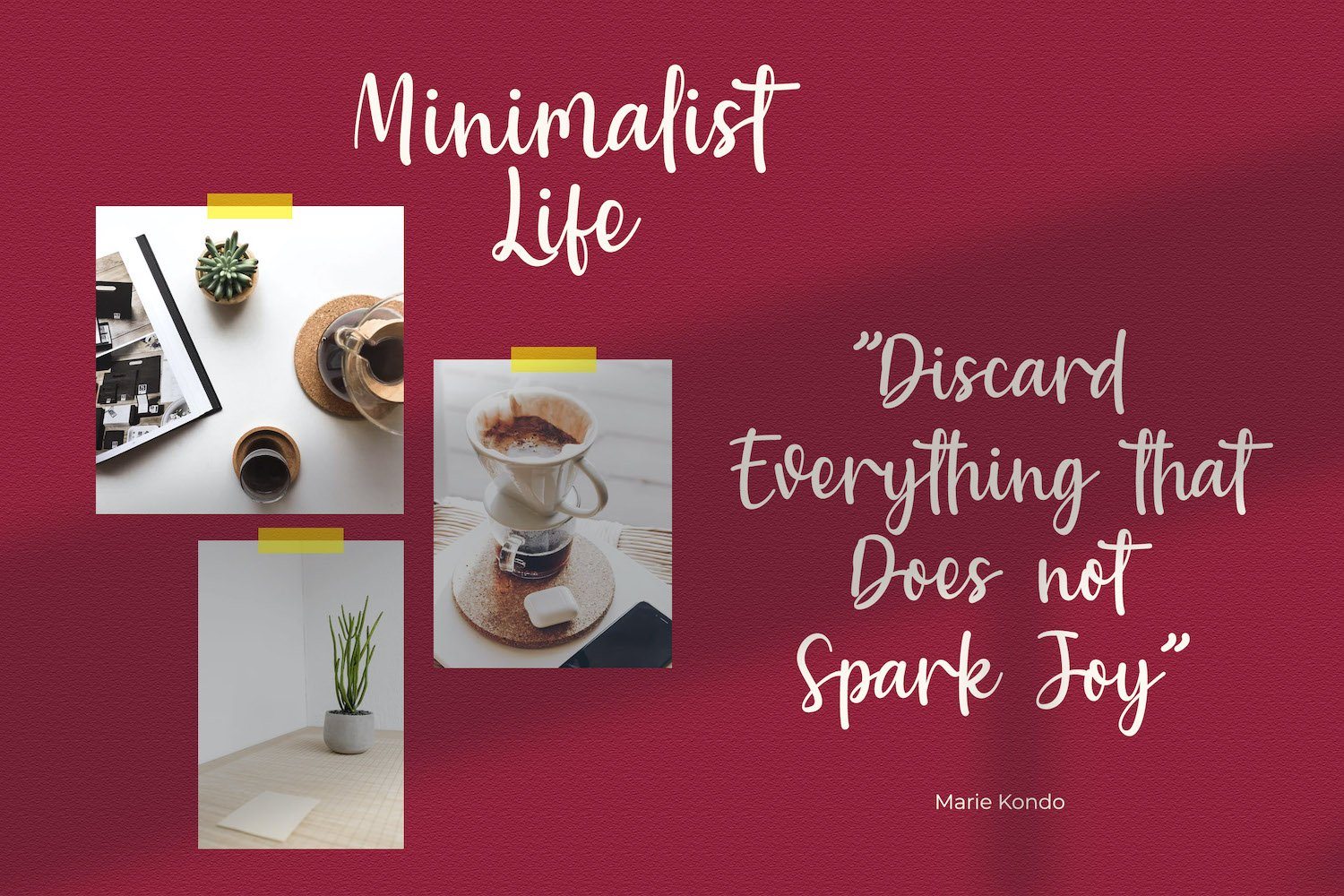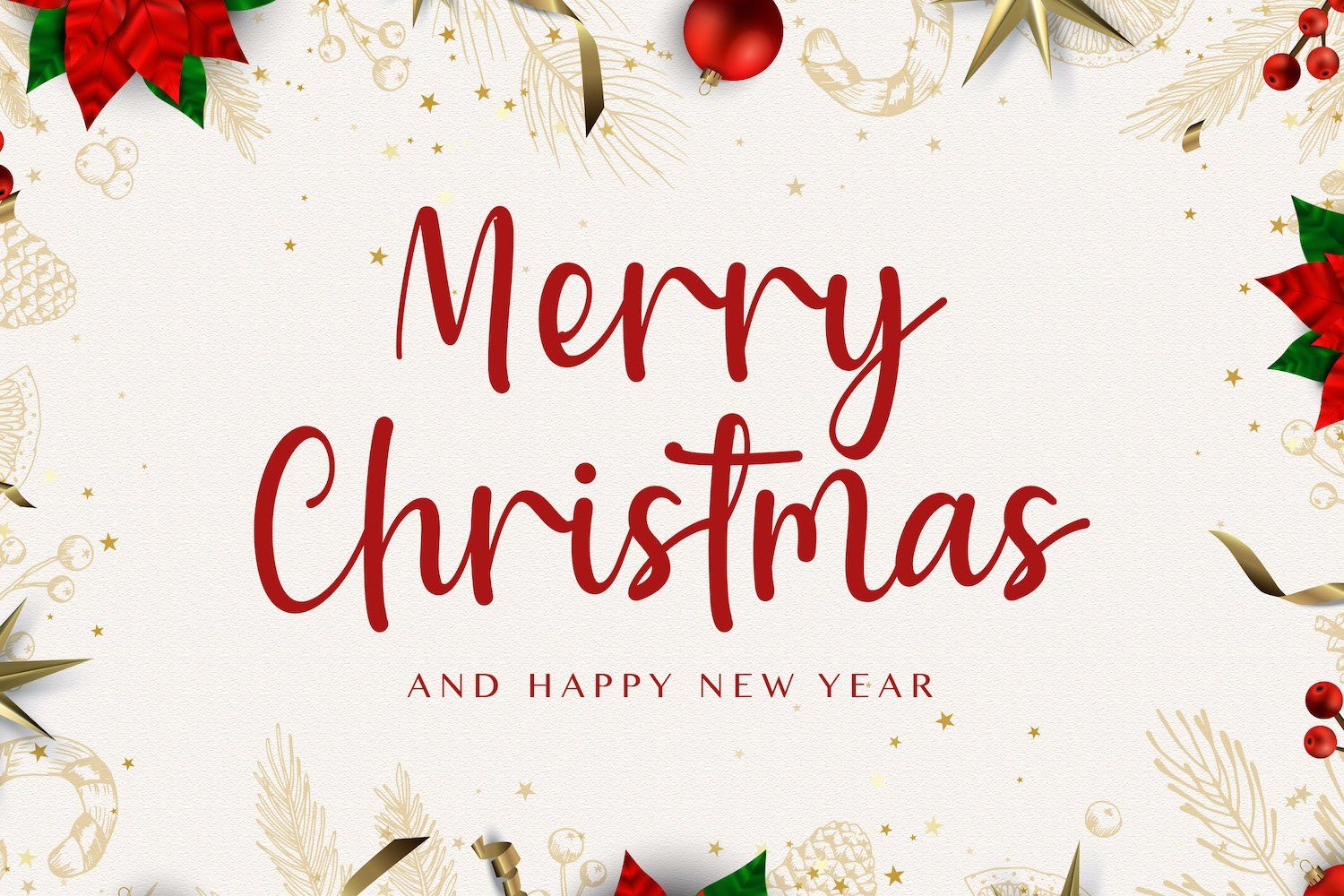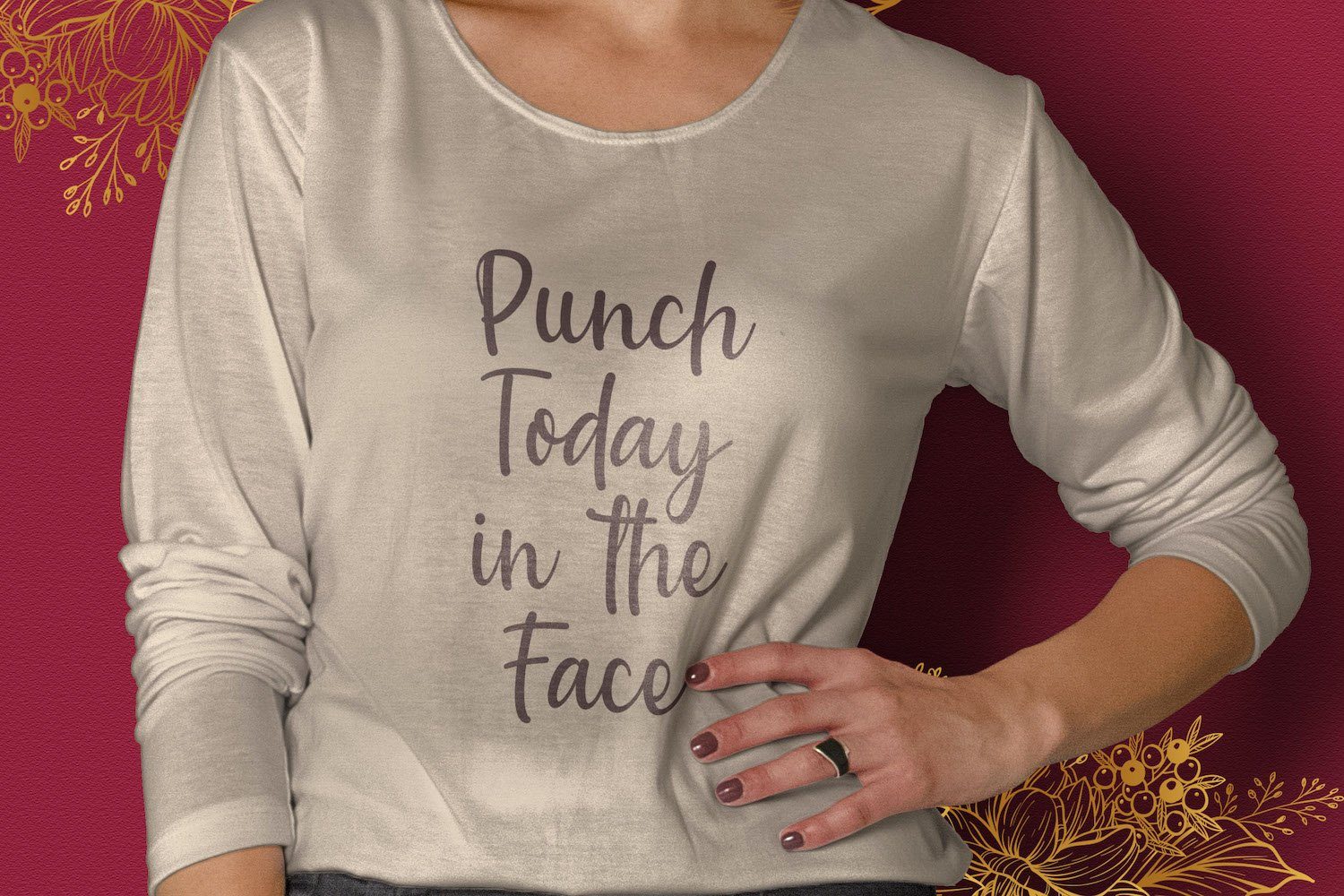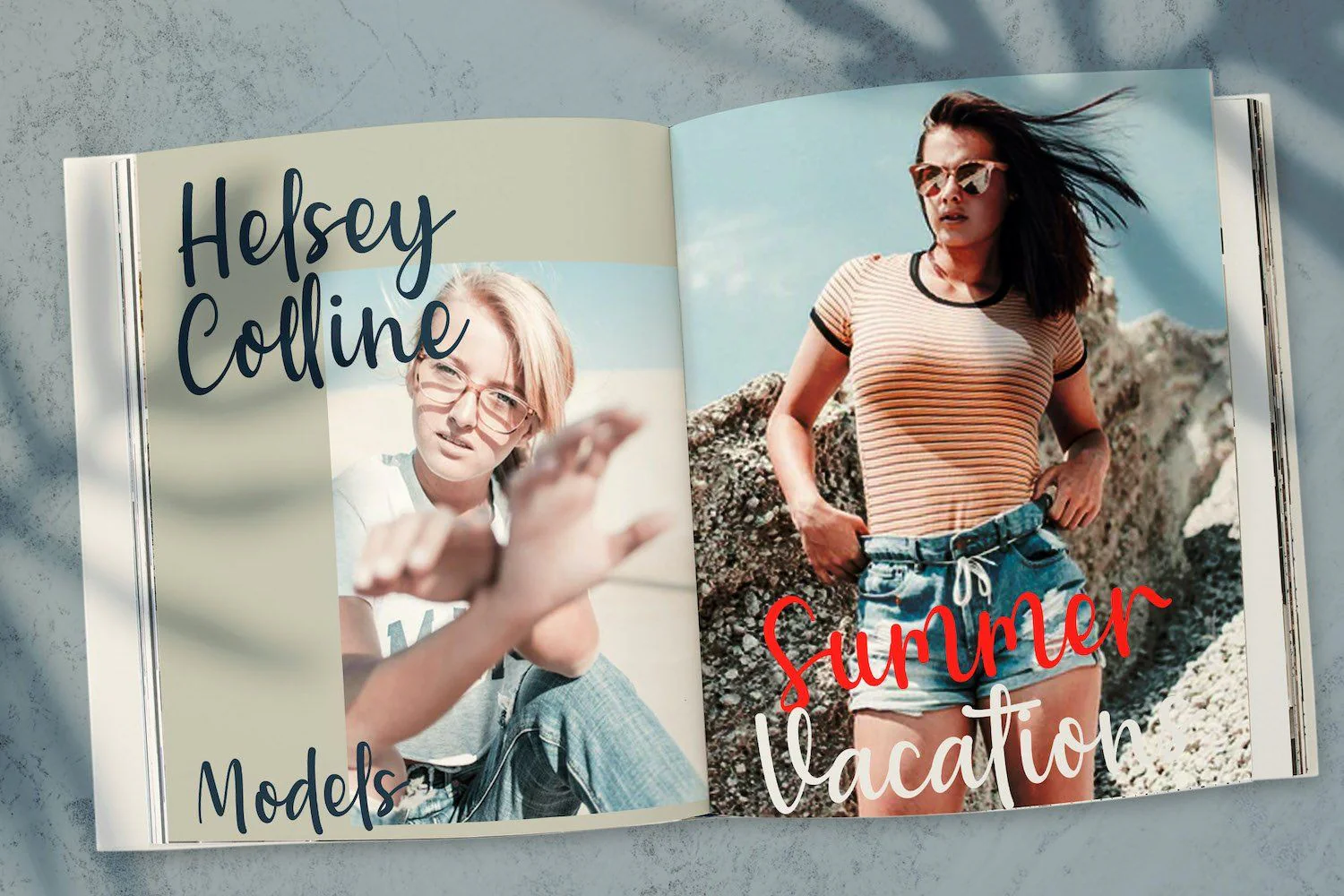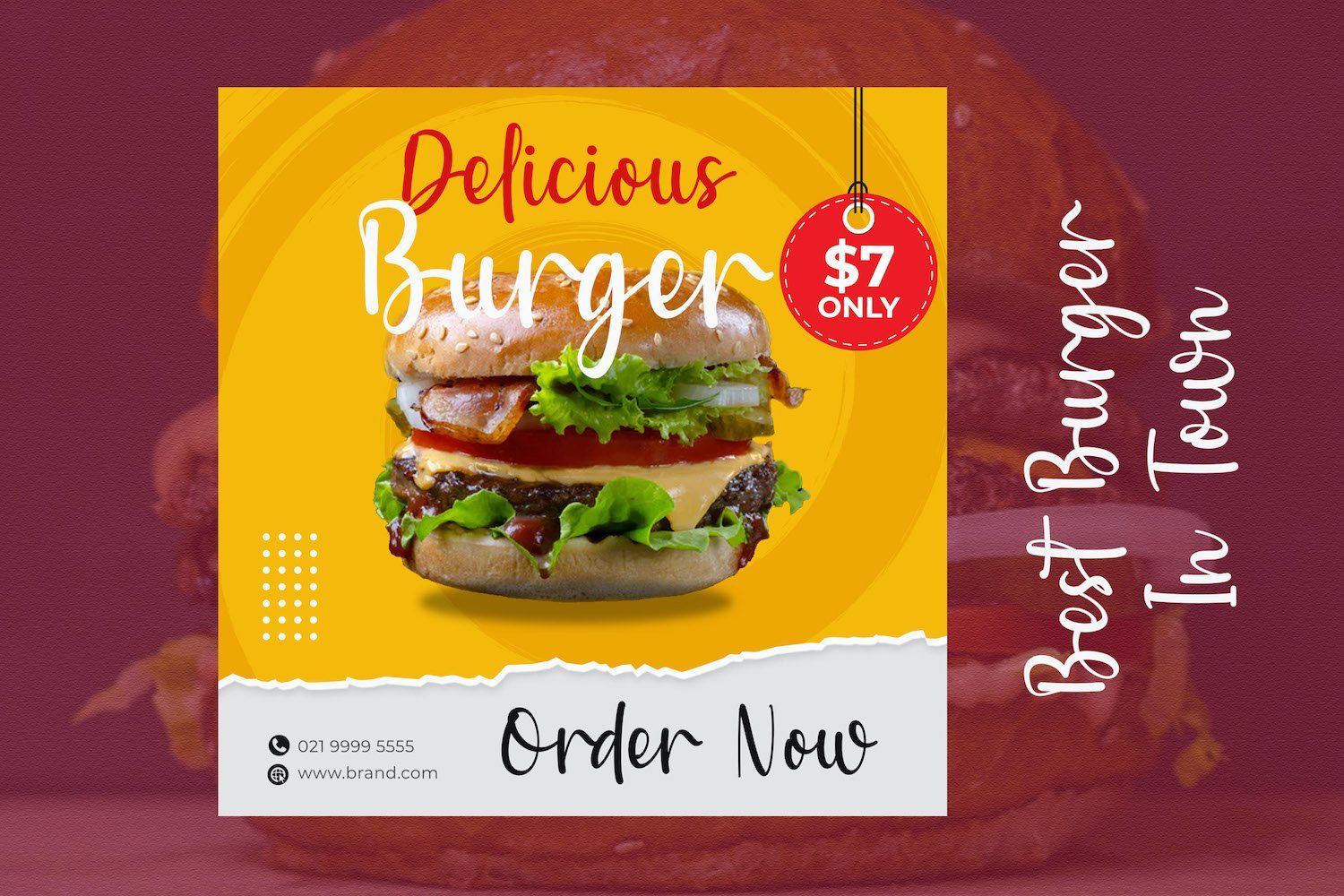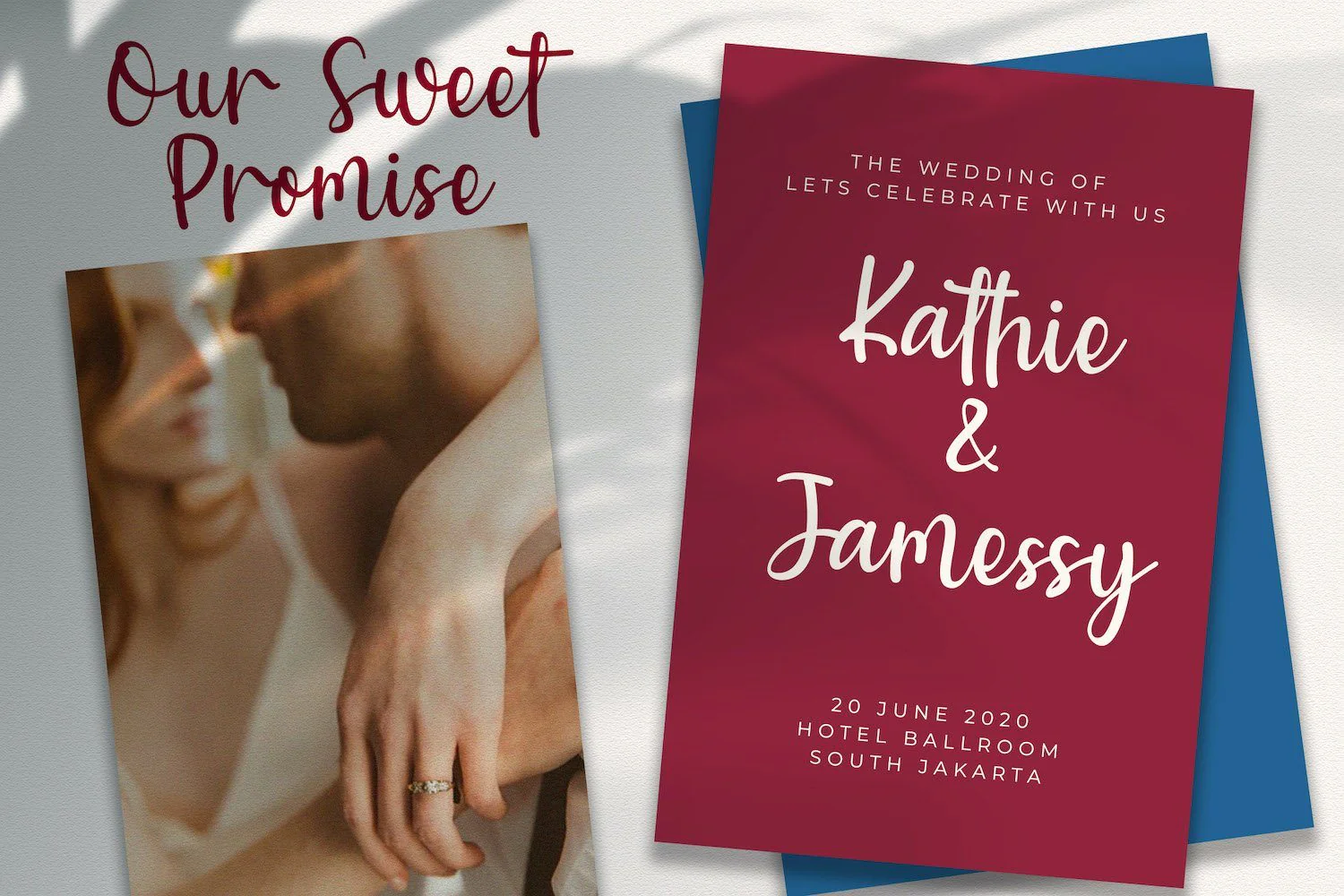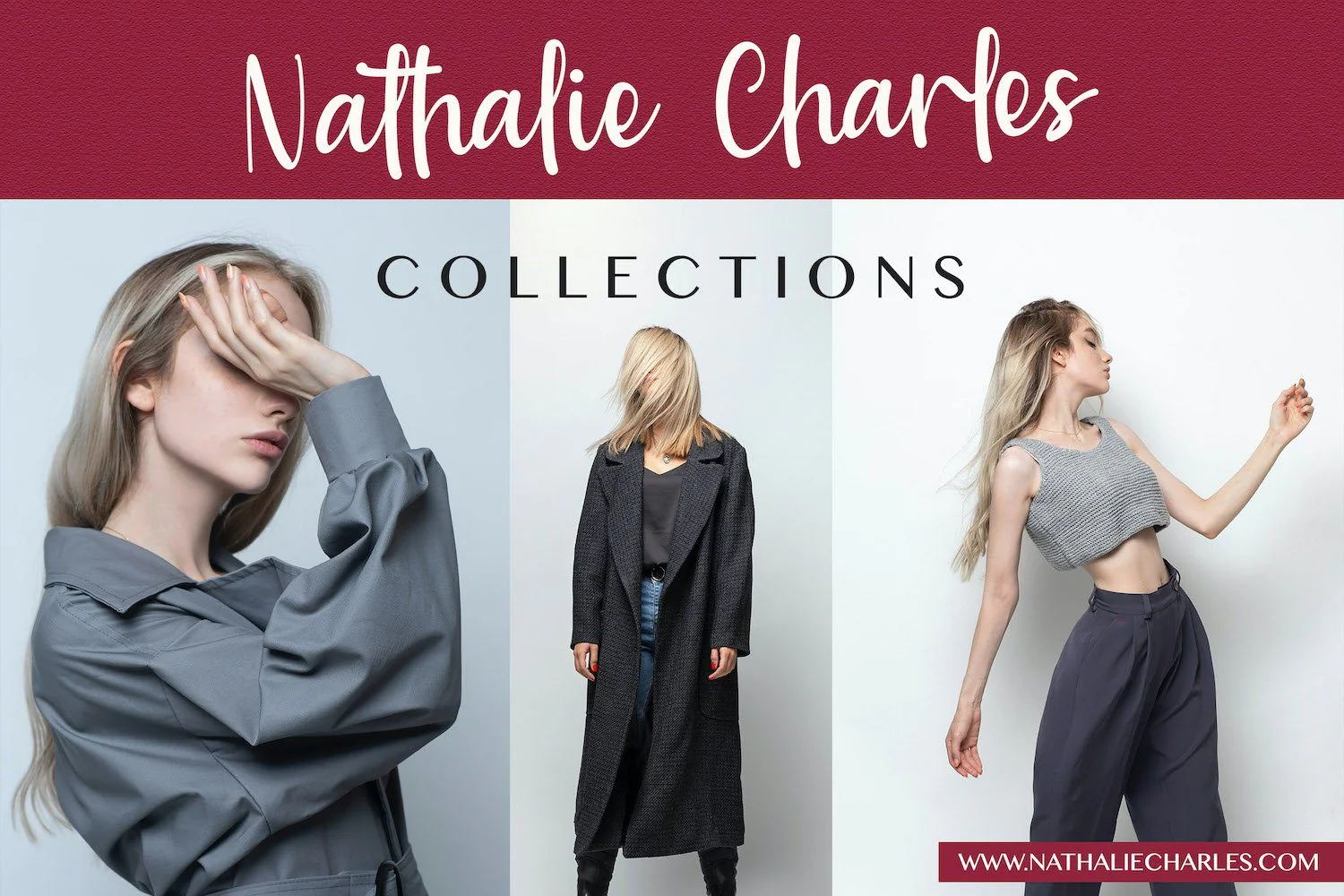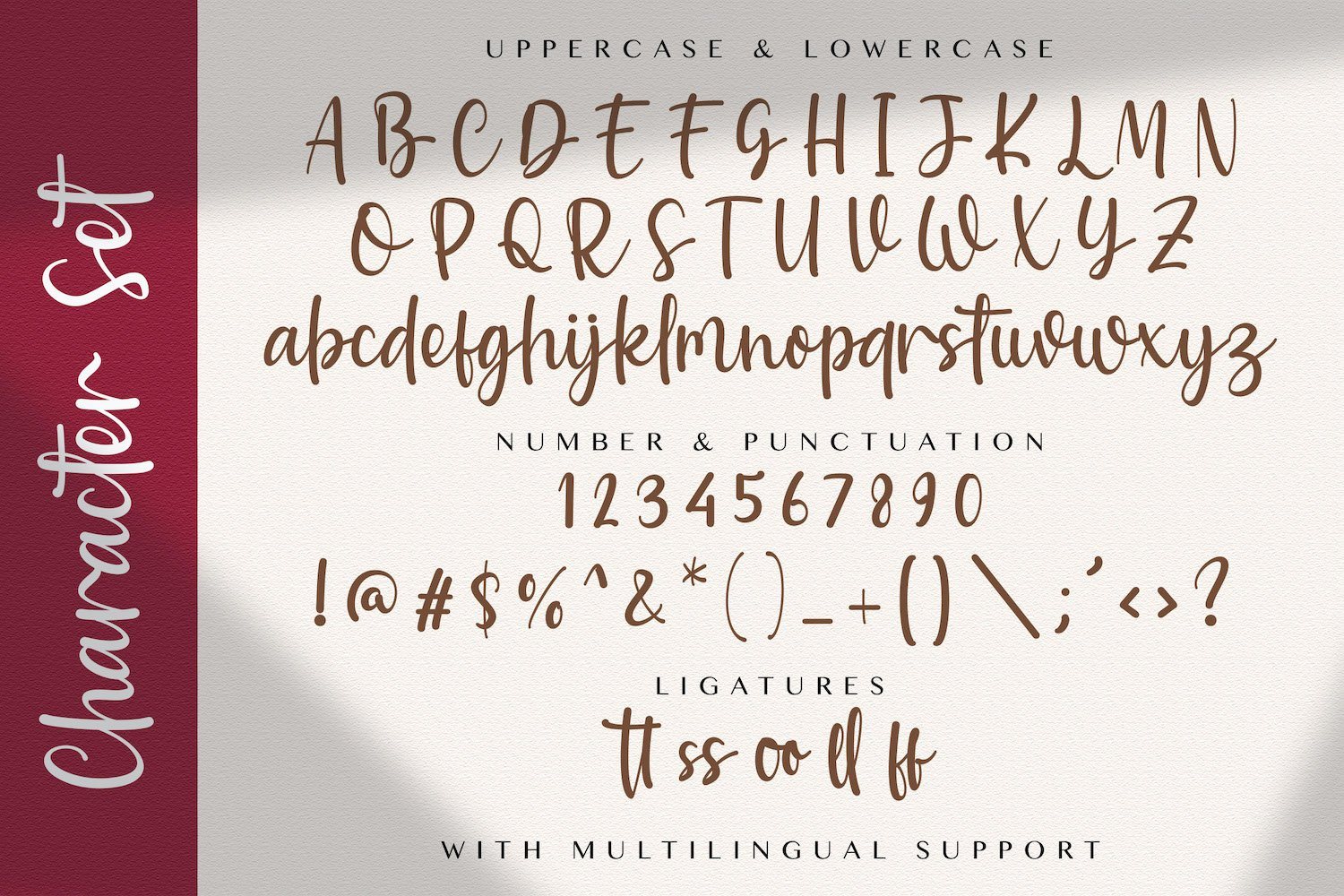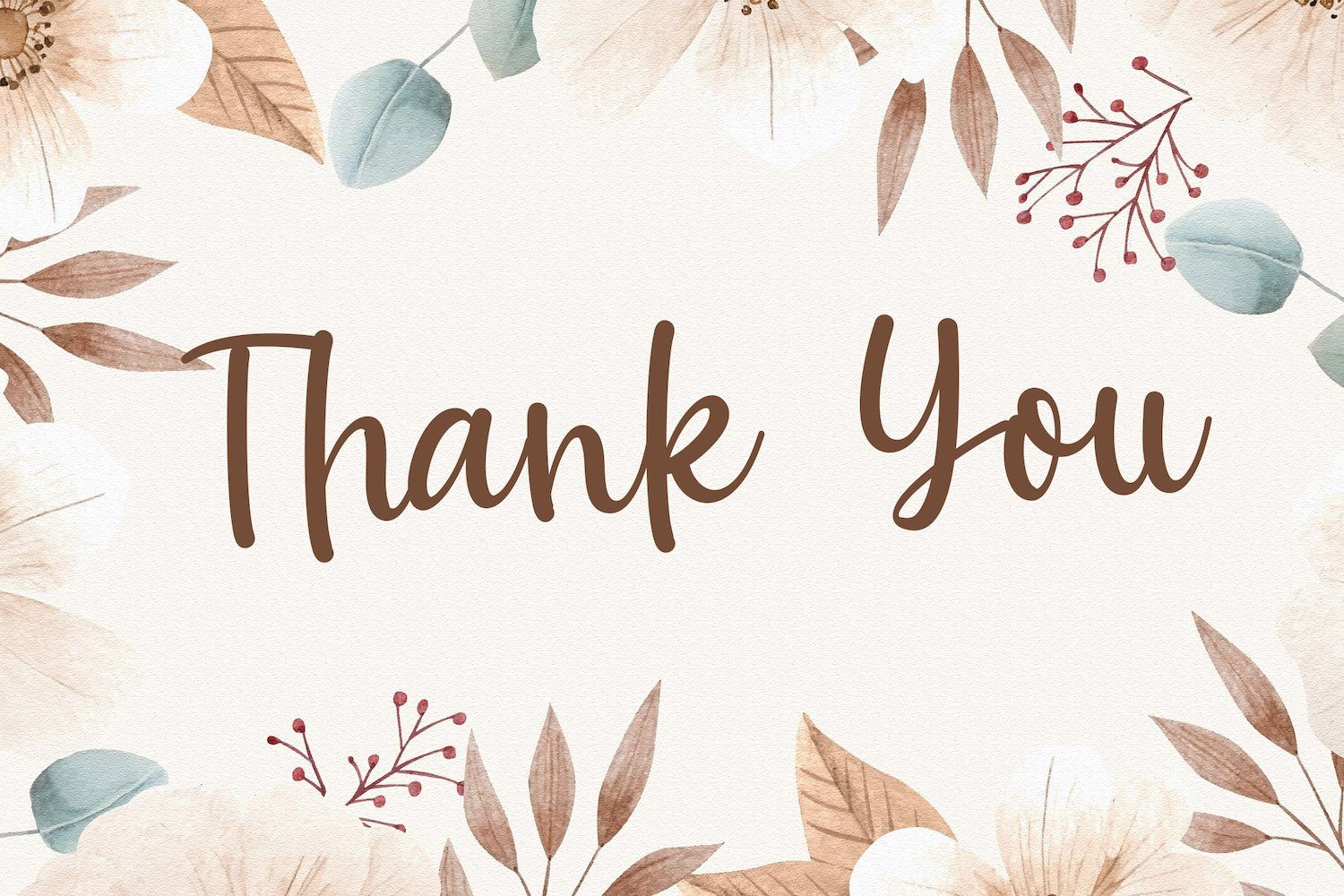
Baweni - Handwritten Script Font
Introducing Baweni - Handwritten Script Font
Baweni is a modern handwritten script font. It will elevate a wide range of design projects to the highest level, be it branding, headings, wedding designs, invitations, signatures, logos, labels, and much more! This font is PUA encoded which means you can access all of the glyphs and swashes with ease!
Introducing Baweni - Handwritten Script Font
Baweni is a modern handwritten script font. It will elevate a wide range of design projects to the highest level, be it branding, headings, wedding designs, invitations, signatures, logos, labels, and much more! This font is PUA encoded which means you can access all of the glyphs and swashes with ease!